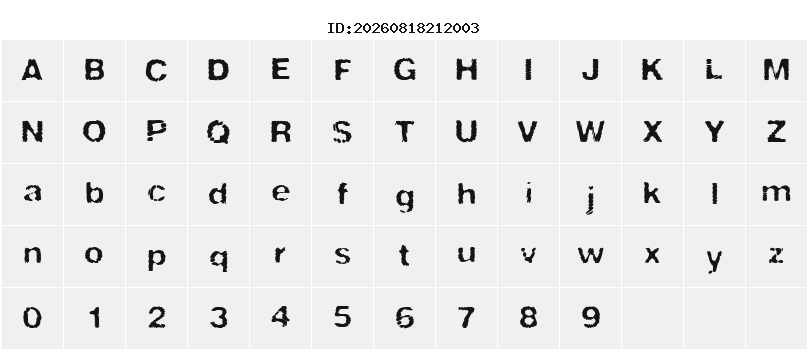
• Font Name: Sira
• Full Font Name: Sira
• Copyright: Created by Annie de la Vega for MadCaps
About Sira.ttf
Sira.ttf is a modern, elegant sans-serif font designed for ultimate readability and visual harmony. Perfect for branding, headlines, web design, and print materials.